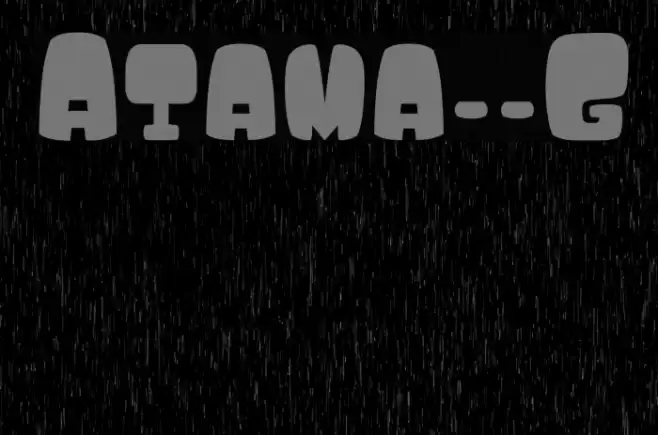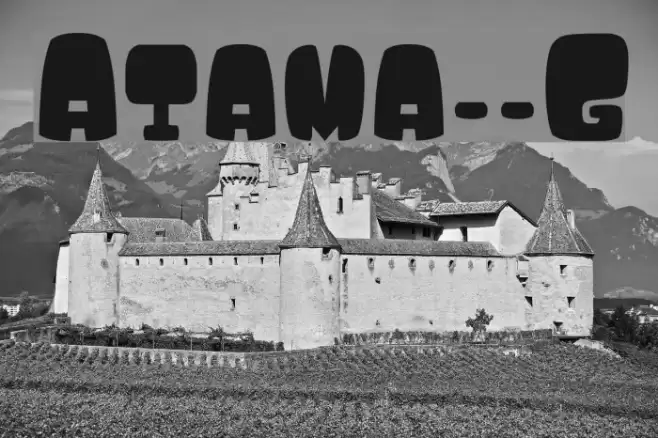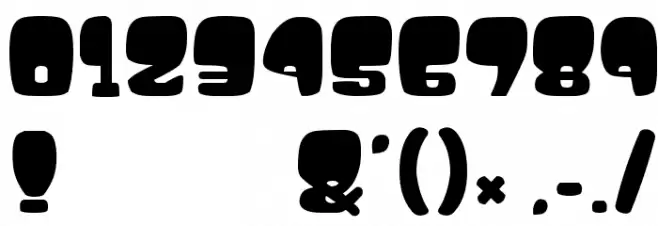
Atama__G Font
Atama__G Description
This font features bold, rounded characters with a playful and whimsical style. The letters are thick and have a slightly irregular shape, giving them a unique and friendly appearance. The uppercase and lowercase letters maintain a consistent weight, contributing to a cohesive look. The numbers and special characters follow the same design principles, ensuring uniformity across all glyphs. The overall aesthetic is fun and approachable, making it suitable for creative and informal projects. The font's boldness and rounded edges make it stand out, while its simplicity ensures readability.
A bold, rounded, and playful font with a whimsical style from Uncategorized fonts.
- Proposed Projects: Ideal for children's books, playful branding, posters, and creative design projects.
- Overall Style: Playful, Whimsical